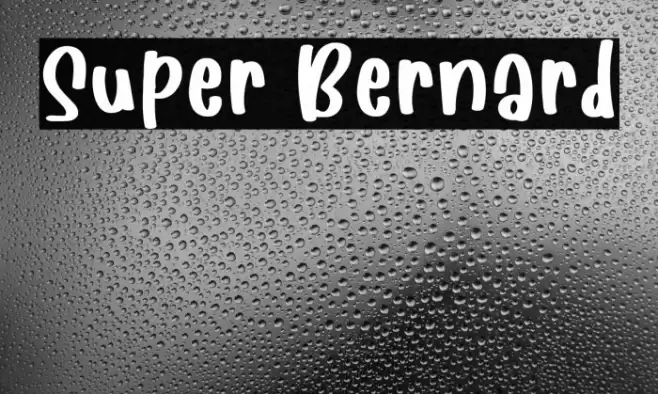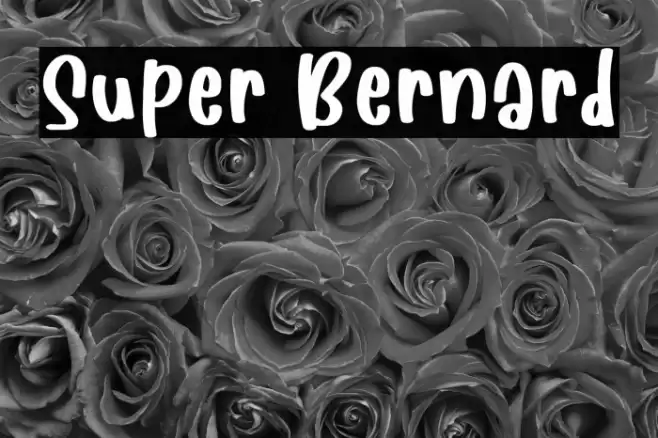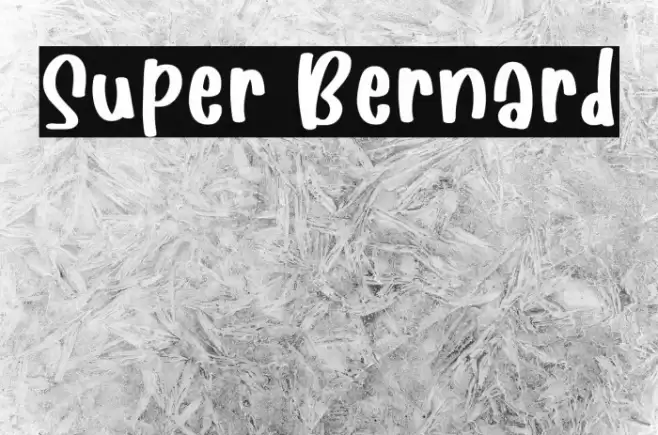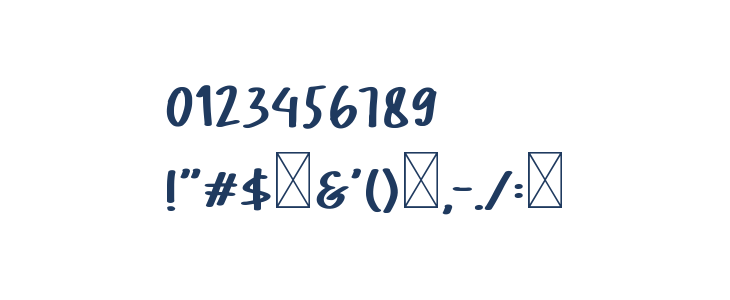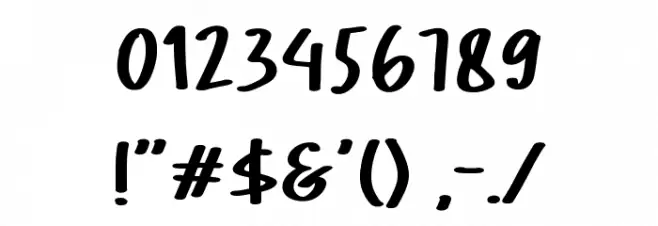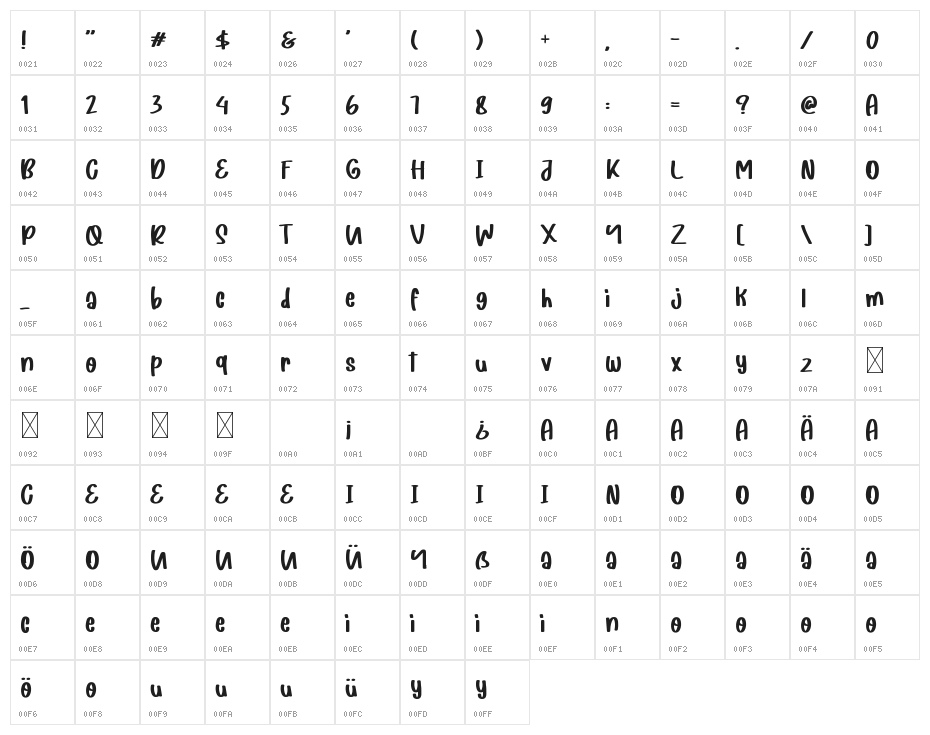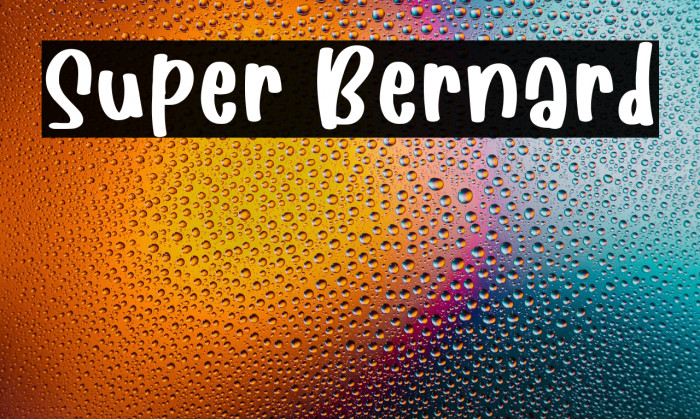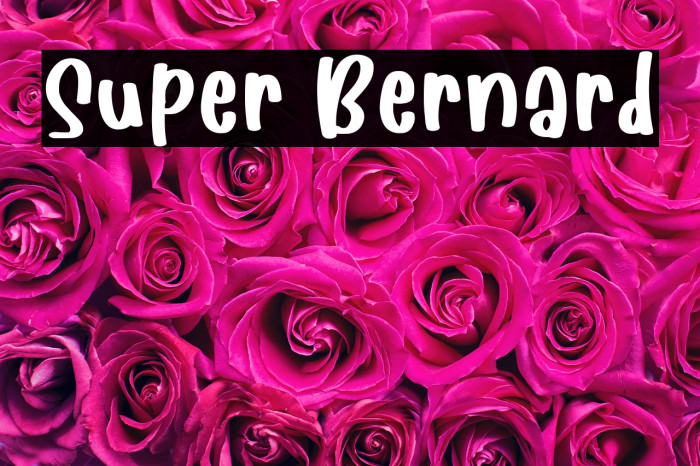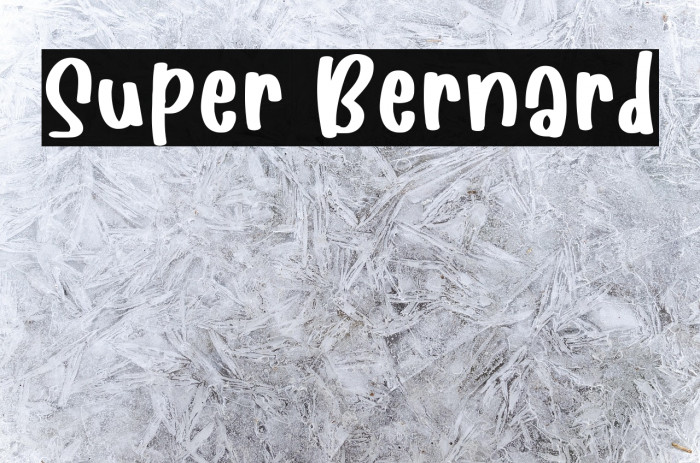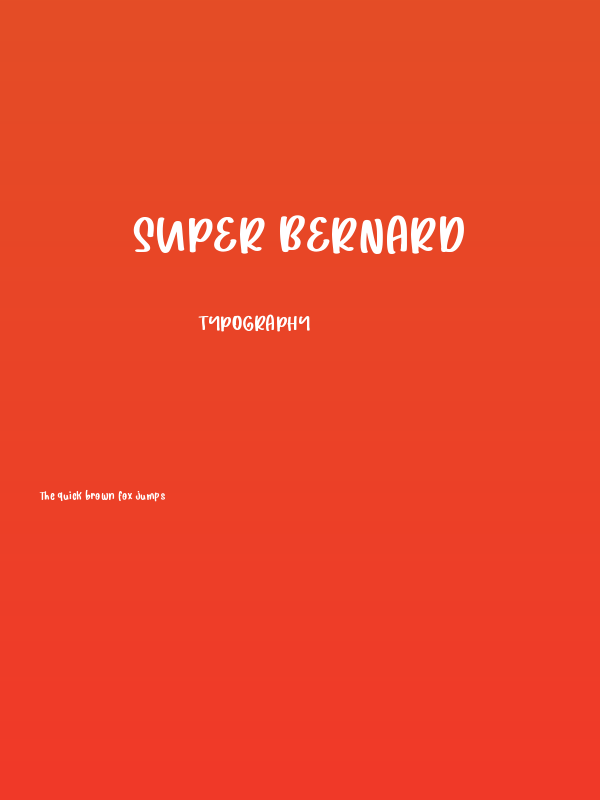
Super Bernard Font
Super Bernard Description
This playful and bold font features a handwritten style with a casual and friendly appearance. The characters are rounded and slightly irregular, giving it a whimsical and approachable feel. The uppercase and lowercase letters maintain a consistent style, with a slight slant that adds to the informal vibe. The numbers and special characters are designed to match the overall aesthetic, making it versatile for various uses. The font's thick strokes and rounded edges contribute to its bold and lively personality, making it ideal for projects that require a touch of fun and creativity.
A bold, playful handwritten font with a casual and friendly style from Regular fonts.
- Font: Super Bernard
- Proposed Projects: Ideal for children's books, playful branding, greeting cards, and creative posters.
- Overall Style: Playful